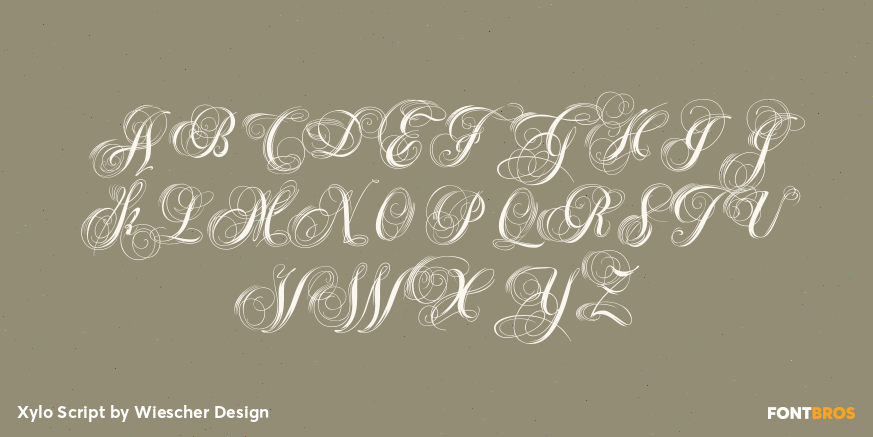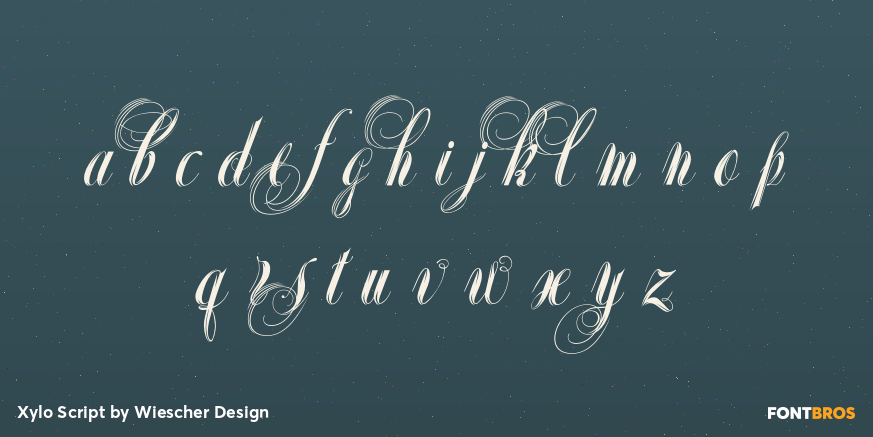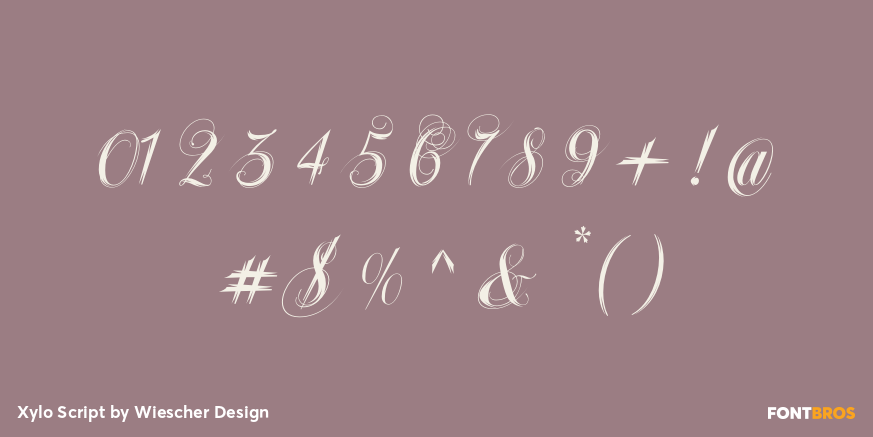
Xylo Script
Font Family by Wiescher Design
XyloScript is my first script with a woodcut look to it. Still, it is very elegant. Xylo is Greek and means “wood”.
This script is another one I designed in the tradition of the 18th-century English calligrapher George Bickham and the 19th-century American calligrapher Platt Rogers Spencer.